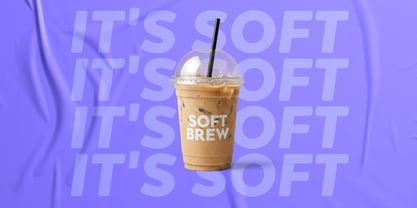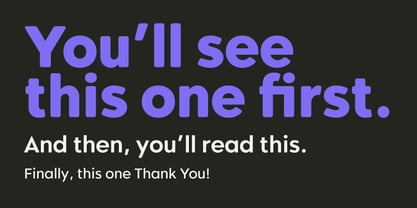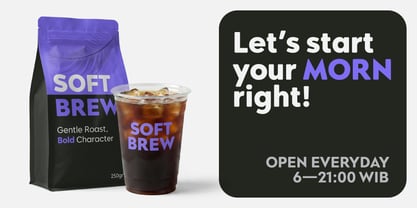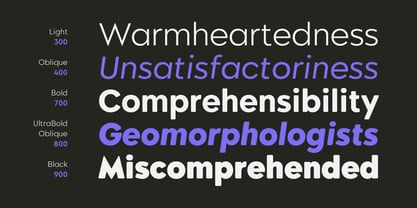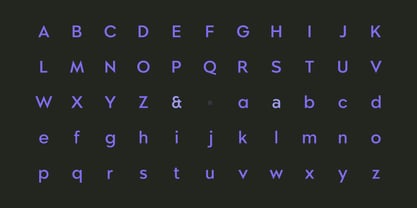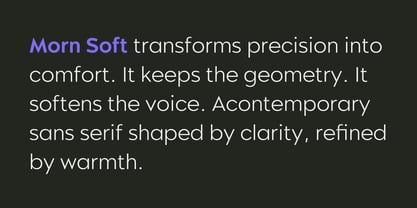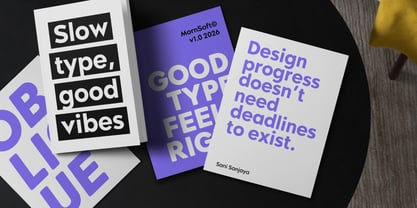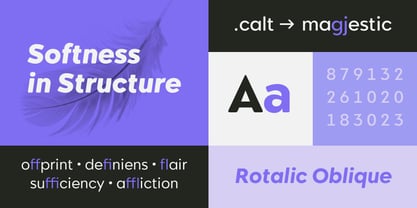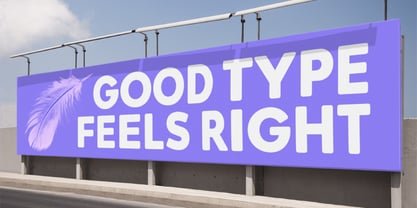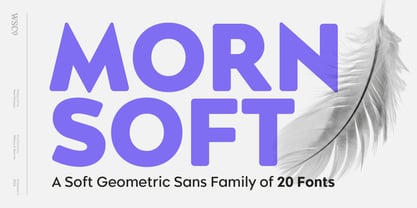
Morn Soft
by Wahyu and Sani Co.
The Morn Soft Font Family was designed by Sani Sanjaya and published by Wahyu and Sani Co.. Morn Soft contains 22 styles and family package options. More about this family
MORN SOFT is a refined evolution of the original MORN, reimagined with a softer touch while preserving its distinctive pointed apex and vertex. This version balances sharp character with smoother contours, creating a more approachable and versatile expression without losing its structural identity. Inspired by the philosophy of a feather—light, subtle, yet defined—MORN SOFT introduces a gentler tone that expands its usability across branding, editorial, web, and display contexts. The family offers 20 fonts plus 2 variable fonts, providing a wide range of weights and flexibility for precise typographic control. As an alternative to the original MORN, MORN SOFT delivers the same confident personality in a softer voice, making it a compelling choice for designers seeking clarity with warmth.
Designers: Sani Sanjaya
Foundry: Wahyu and Sani Co.